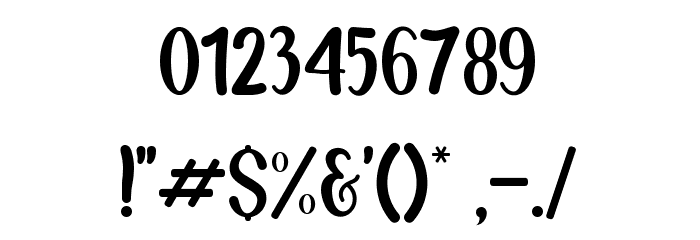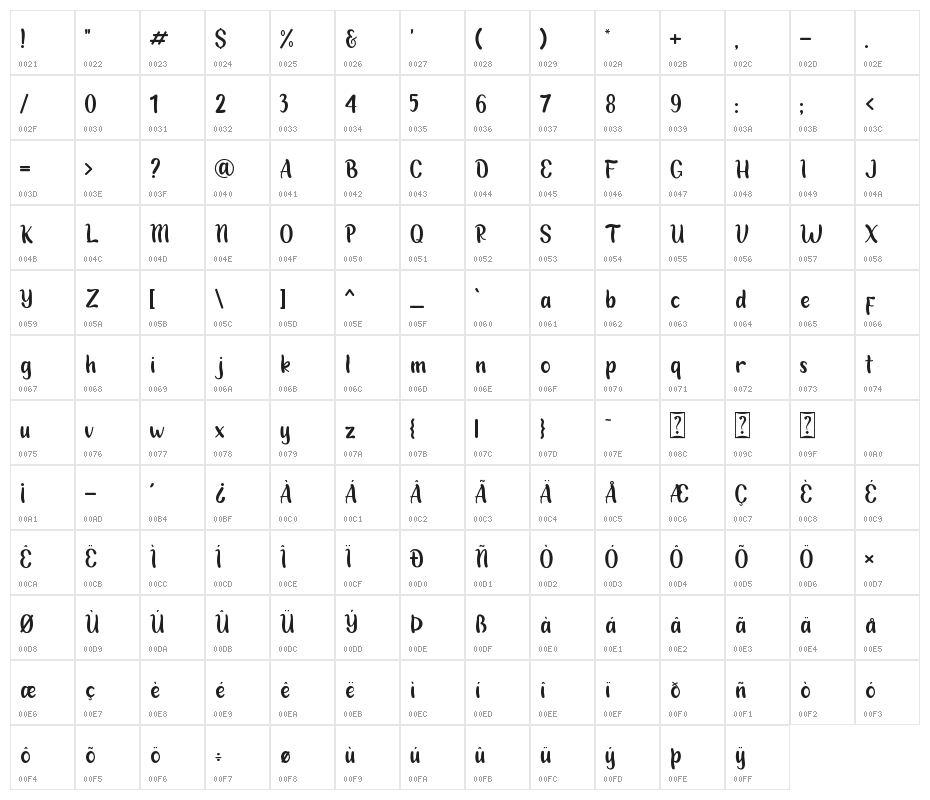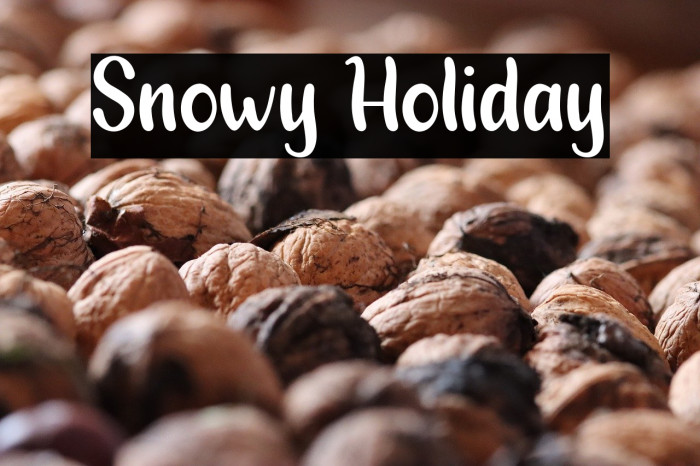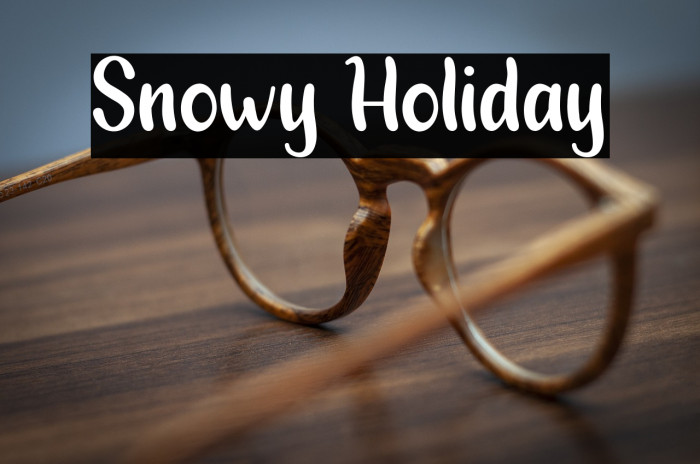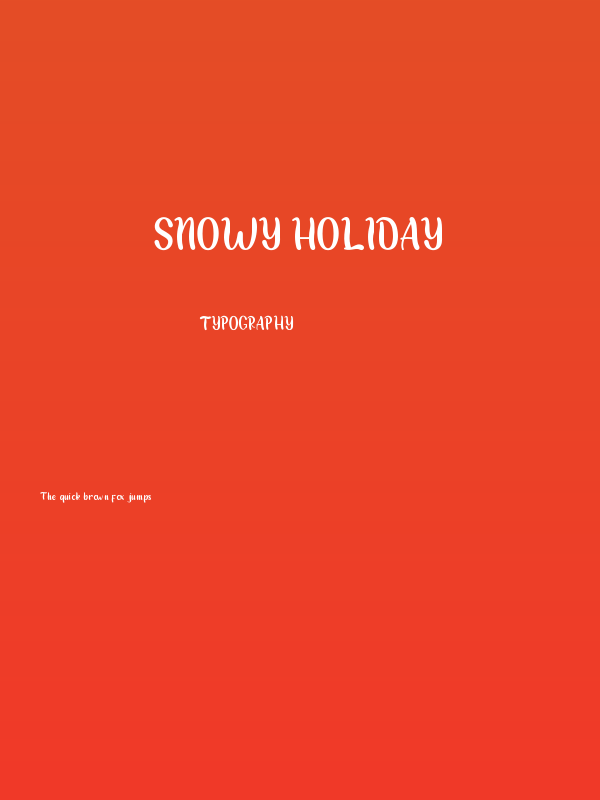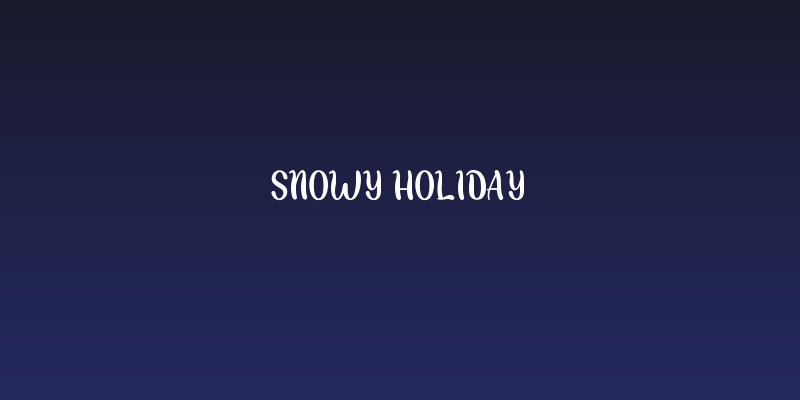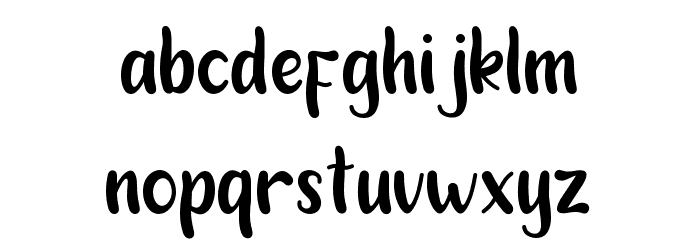
Snowy Holiday Font
Snowy Holiday Description
This font exudes a playful and festive charm, characterized by its smooth, flowing curves and slightly whimsical style. The letters have a hand-drawn quality, giving them a warm and inviting appearance. The strokes are consistent in width, providing a uniform look across all characters. The uppercase letters are bold and prominent, while the lowercase letters maintain a friendly and approachable feel. The numerals and special characters are designed to match the overall aesthetic, ensuring a cohesive look. This font is perfect for adding a touch of personality and cheer to any project.